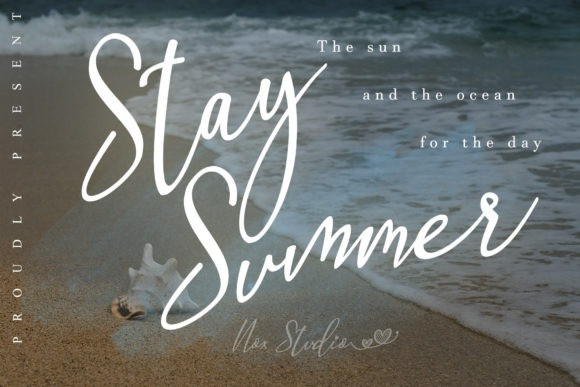
Stay Summer Script Font
Stay Summer is a stylish and refined handwritten font. It looks beautiful on a variety of designs requiring a personalized style, such as wedding invitations, thank you cards, weddings, greeting cards, logos and so on. This font is PUA encoded which means you can access all of the glyphs and swashes with ease!